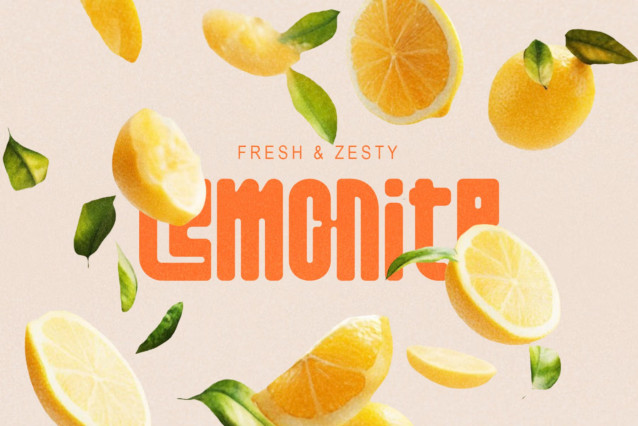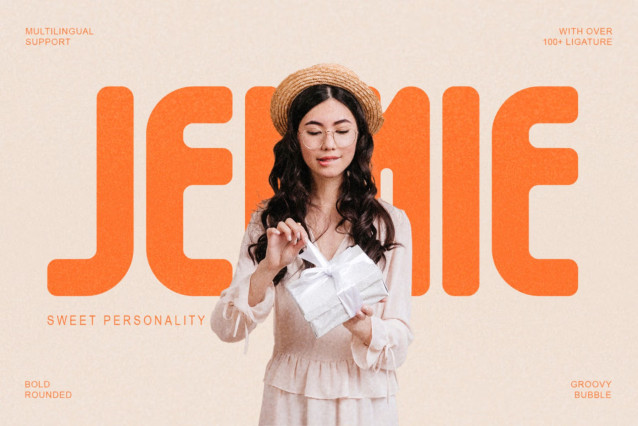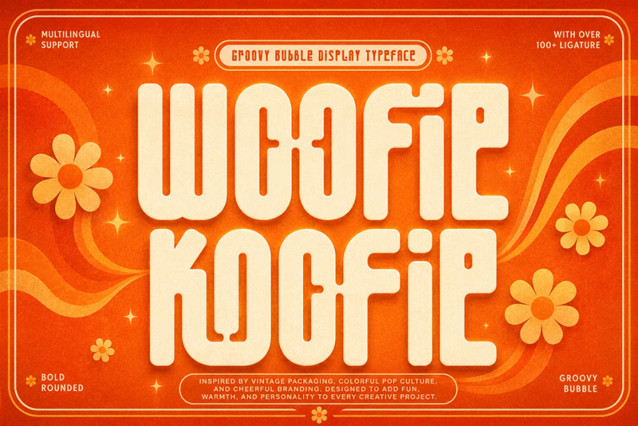
Woofie Koofie Groovy Font
Woofie Koofie is a bold groovy bubble display font inspired by 1970s typography, vintage packaging, and colorful pop culture. Featuring uppercase and lowercase letters, alternates, multilingual characters, numerals, punctuation, and more than 100 creative ligatures, it is perfect for retro logos, posters, packaging, apparel, food branding, children’s products, and playful advertising.